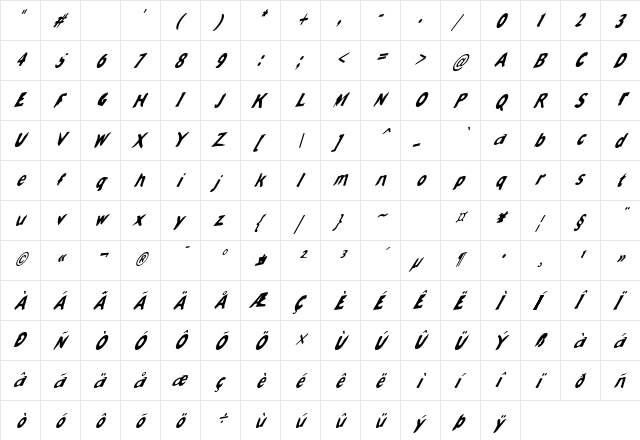
Slantalic Regular
Design Context for Slantalic Typeface
Slantalic is a composed and adaptable typeface that performs quietly and consistently across a wide range of design contexts.